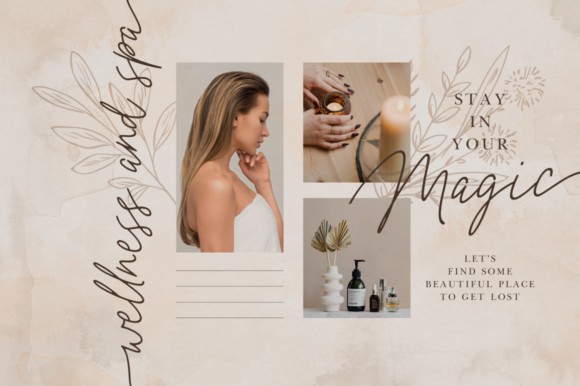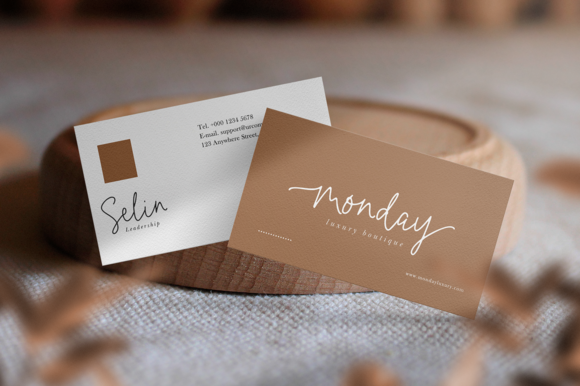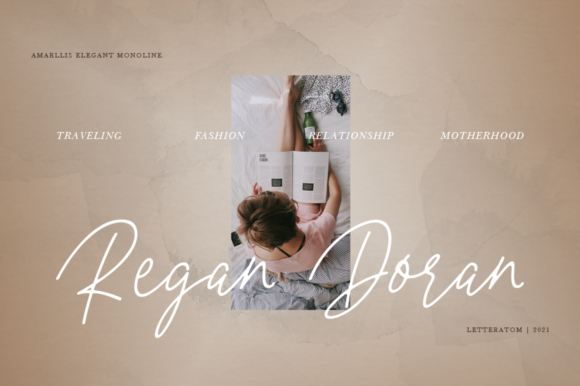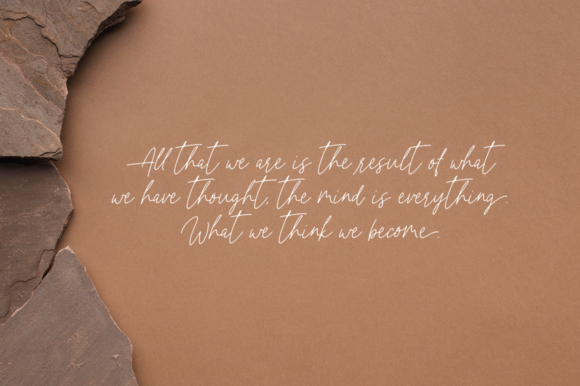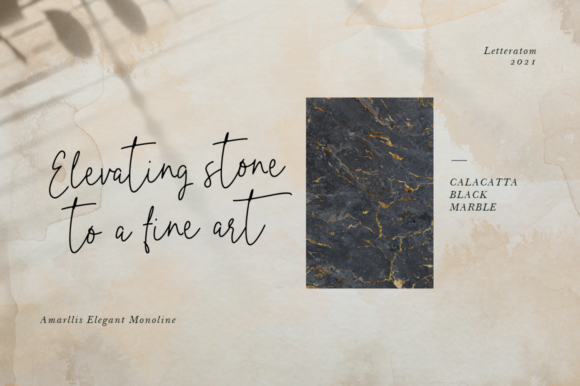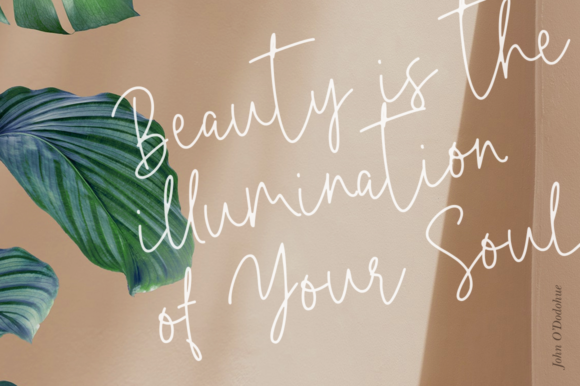
Introducing Amarllis Font: A Delicate and Elegant Handwritten Masterpiece
Are you a designer or crafter looking for a font that exudes elegance and sophistication? Look no further than Amarllis Font, a beautiful handwritten font that is sure to elevate your creative projects. With its delicate and refined lettering, Amarllis Font is the perfect choice for those seeking a touch of luxury and refinement in their designs.
The Distinctive Characteristics of Amarllis Font
Amarllis Font is a true masterpiece, boasting distinct and well-balanced letters that set it apart from other fonts. Its unique character is sure to capture the attention of your audience and leave a lasting impression. Whether you’re working on a branding project, crafting a beautiful stationery set, or creating stunning digital content, Amarllis Font is the perfect choice.
One of the standout features of Amarllis Font is its PUA (Private Use Area) encoding. This means that you can access all of the glyphs and swashes with ease, giving you complete creative control over your designs. With PUA encoding, you can effortlessly navigate the font’s extensive character set, including ligatures, alternates, and ornaments, to create truly unique and eye-catching designs.
Amarllis Font is a versatile font that is perfect for a wide range of creative applications. Designers will love using it for:
- Branding and logo design: Create a lasting impression with Amarllis Font’s elegant and sophisticated lettering.
- Print design: Use Amarllis Font to create stunning stationery sets, business cards, and brochures.
- Digital design: Elevate your digital content with Amarllis Font’s refined and luxurious feel.
Crafters will also adore Amarllis Font for:
- Handmade cards and invitations: Add a touch of elegance to your handmade creations with Amarllis Font.
- Journaling and scrapbooking: Use Amarllis Font to create beautiful and eye-catching journal pages and scrapbook layouts.
- DIY projects: Incorporate Amarllis Font into your DIY projects, such as signs, banners, and decorations.
Tips for Using Amarllis Font
To get the most out of Amarllis Font, here are a few tips:
- Experiment with different sizes and colors to create visual interest and hierarchy.
- Pair Amarllis Font with complementary fonts to create a unique and eye-catching combination.
- Take advantage of the font’s PUA encoding to access glyphs and swashes and add an extra touch of elegance to your designs.
Amarllis Font is a truly exceptional handwritten font that is sure to delight designers and crafters alike. With its delicate and elegant lettering, PUA encoding, and versatility, Amarllis Font is the perfect choice for a wide range of creative projects. Whether you’re looking to create stunning designs, beautiful stationery, or eye-catching digital content, Amarllis Font is sure to exceed your expectations.